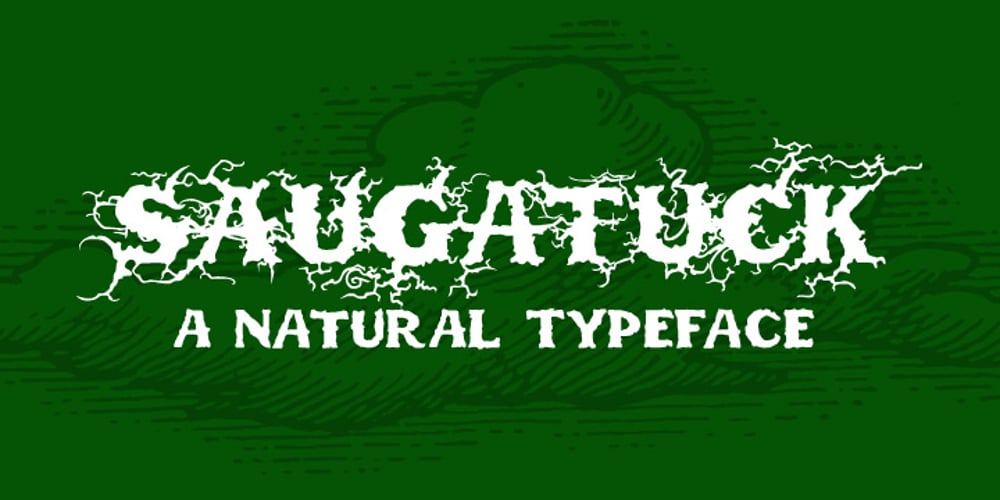
Saugatuck Font Family was designed by Alex Jacque and published by Alex Jacque. Saugatuck contains 2 styles and family package options. Saugatuck is a cap-height only display typeface inspired by nature. With it’s roots based on a few hand-drawn characters from nearly a century ago by the pen artist W.E. Dennis, Saugatuck now exists as a two-variant typeface. It contains all of the usual characters and accents, most of the math, plus some of the more esoteric characters. Each letter A-Z has a alternate in it’s associated lowercase character to allow you to have even more varied, natural-looking text. Works great for display purposes, seasonal designs, and times when you need to invoke a little bit of a less-structured, environmental feeling.